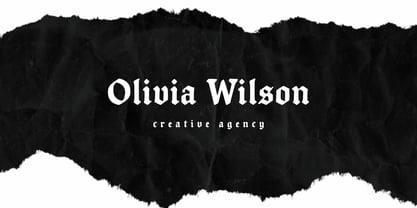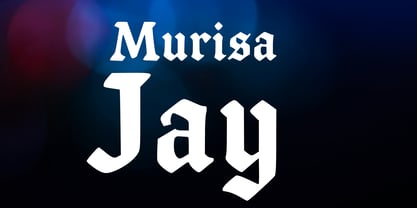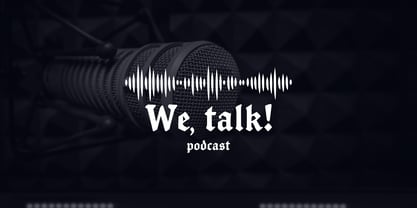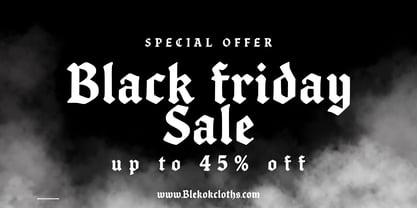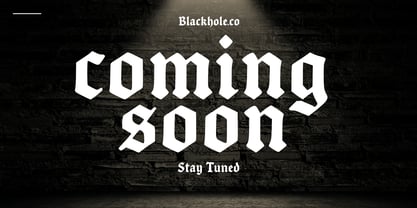
Murisa Jay
🔥 Murisa Jay — Where Gothic Majesty Meets Eastern Precision
Step into a realm where tradition and rebellion collide. Murisa Jay is a masterfully crafted blackletter typeface that channels the dramatic elegance of medieval calligraphy with a bold, contemporary twist. Every curve, spike, and flourish is meticulously designed to evoke power, mystery, and timeless sophistication.
🖋️ Distinctive Features
• Majestic uppercase forms that command attention in headlines, logos, and packaging
• Intricately balanced lowercase letters for immersive body text and ornamental layouts
• Numerals with flair, perfect for editorial design, branding, and statement pieces
• Eastern European language support, ensuring your message resonates across borders and cultures
🎯 Whether you're designing for luxury fashion, avant-garde music, or high-end editorial spreads, Murisa Jay delivers a visual punch that’s impossible to ignore. It’s not just a font—it’s a statement of identity, heritage, and artistic authority.
💎 Exclusivity Meets Versatility From gothic tattoos to premium spirits, from album covers to gallery posters—Murisa Jay adapts with grace and grit. It’s the kind of typeface that turns ordinary projects into collector’s pieces